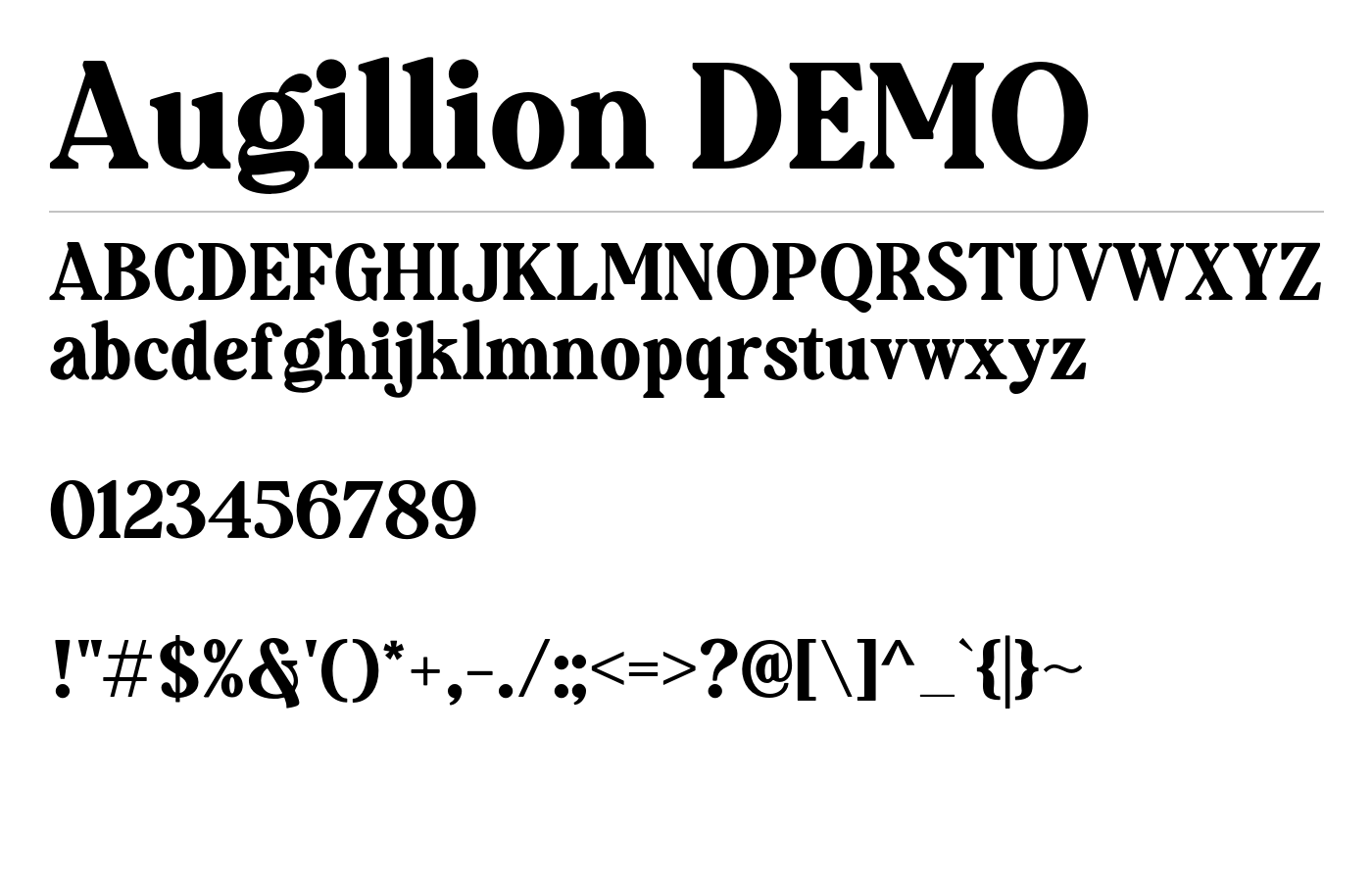
Augillion DEMO is a bold, serif typeface with a classic and strong character, featuring medium contrast between thick and thin strokes and bracketed serifs that add a refined touch. Its traditional letterforms, including double-story lowercase letters and distinct uppercase shapes, give it a timeless, authoritative feel perfect for editorial headlines, branding, and print media where elegance and readability matter. This font works well in contexts that require a confident yet sophisticated presence, such as luxury packaging, formal invitations, and upscale logo design.
Augillion DEMO Font
About Augillion DEMO Font
| Designer | Sarid Ezra |